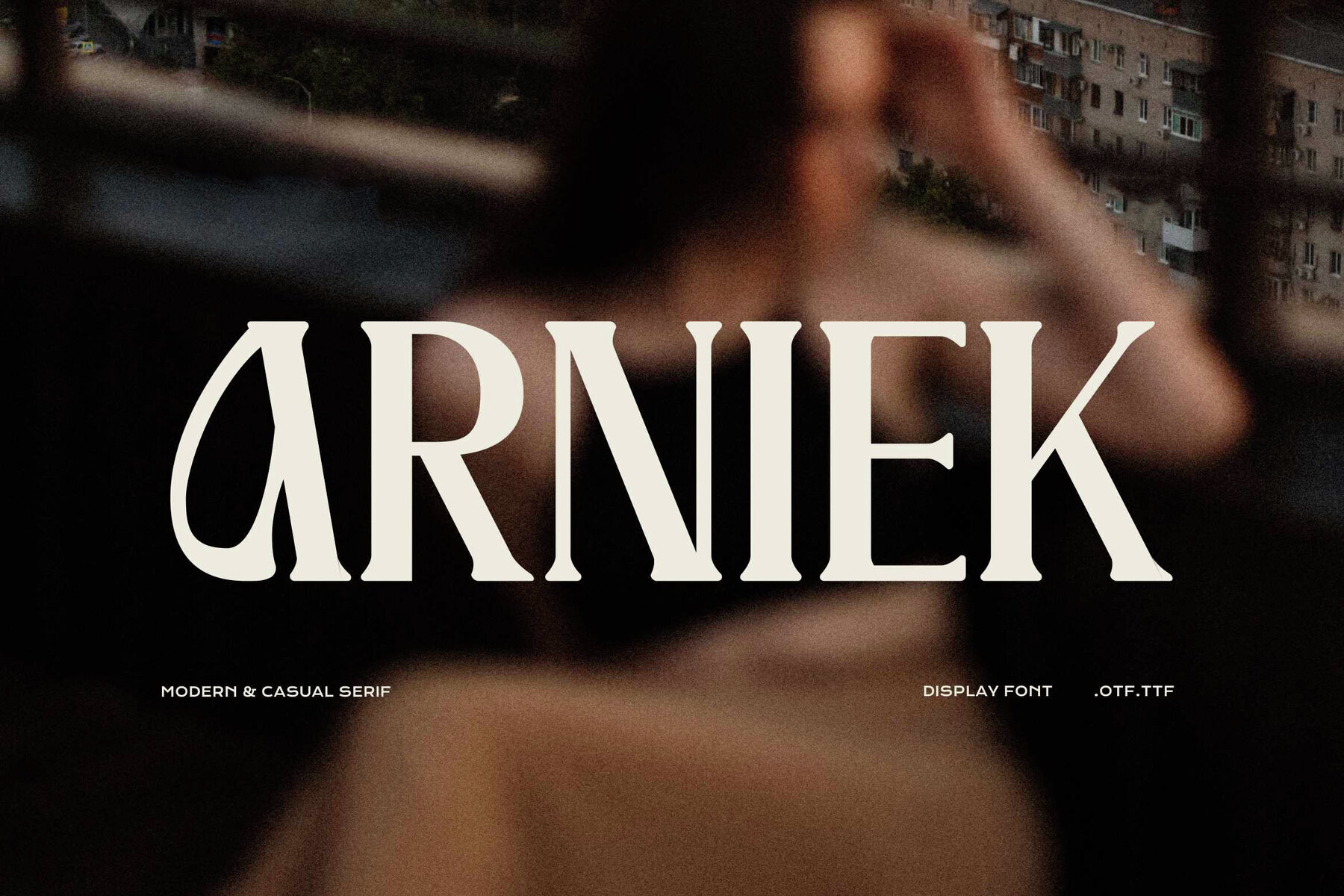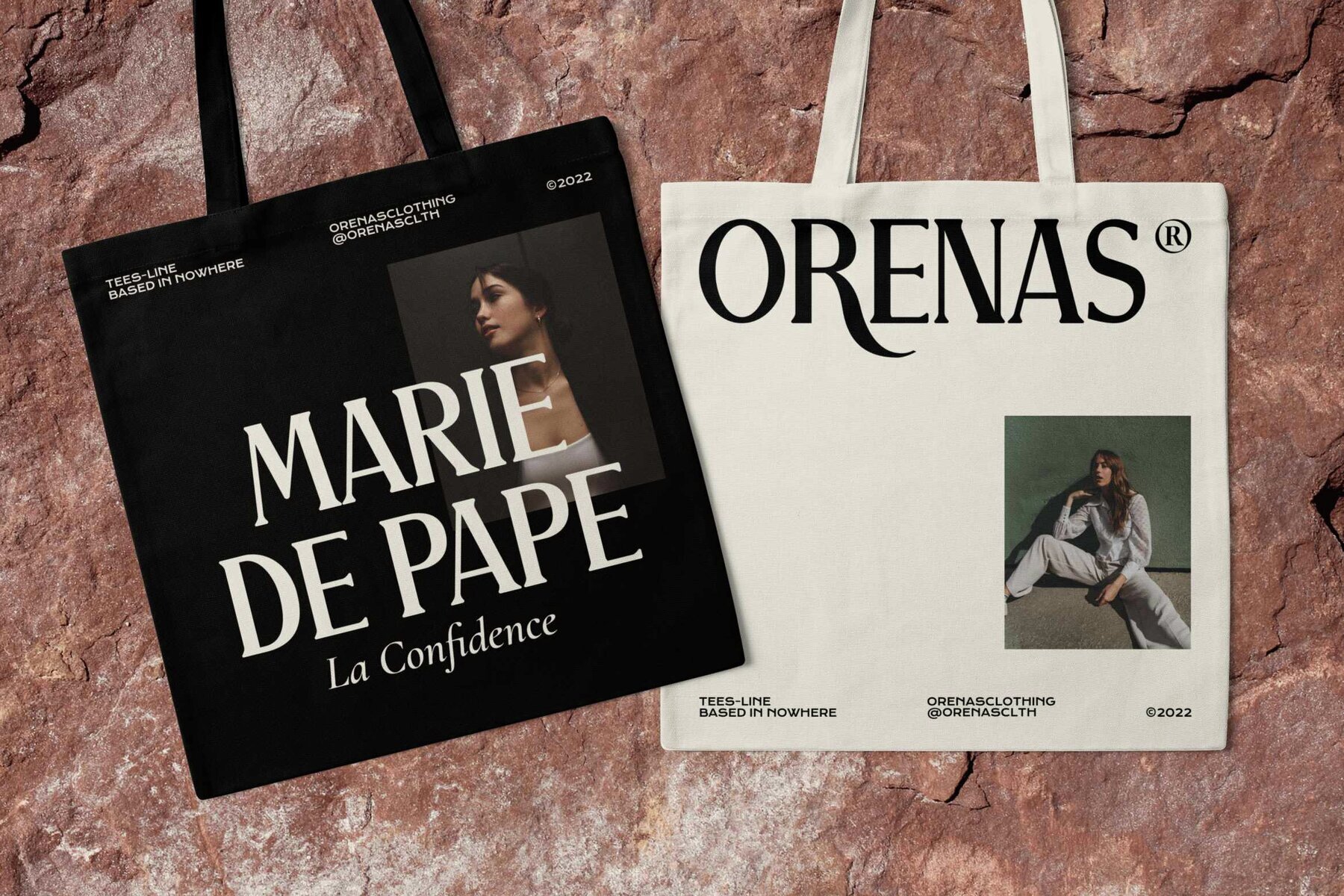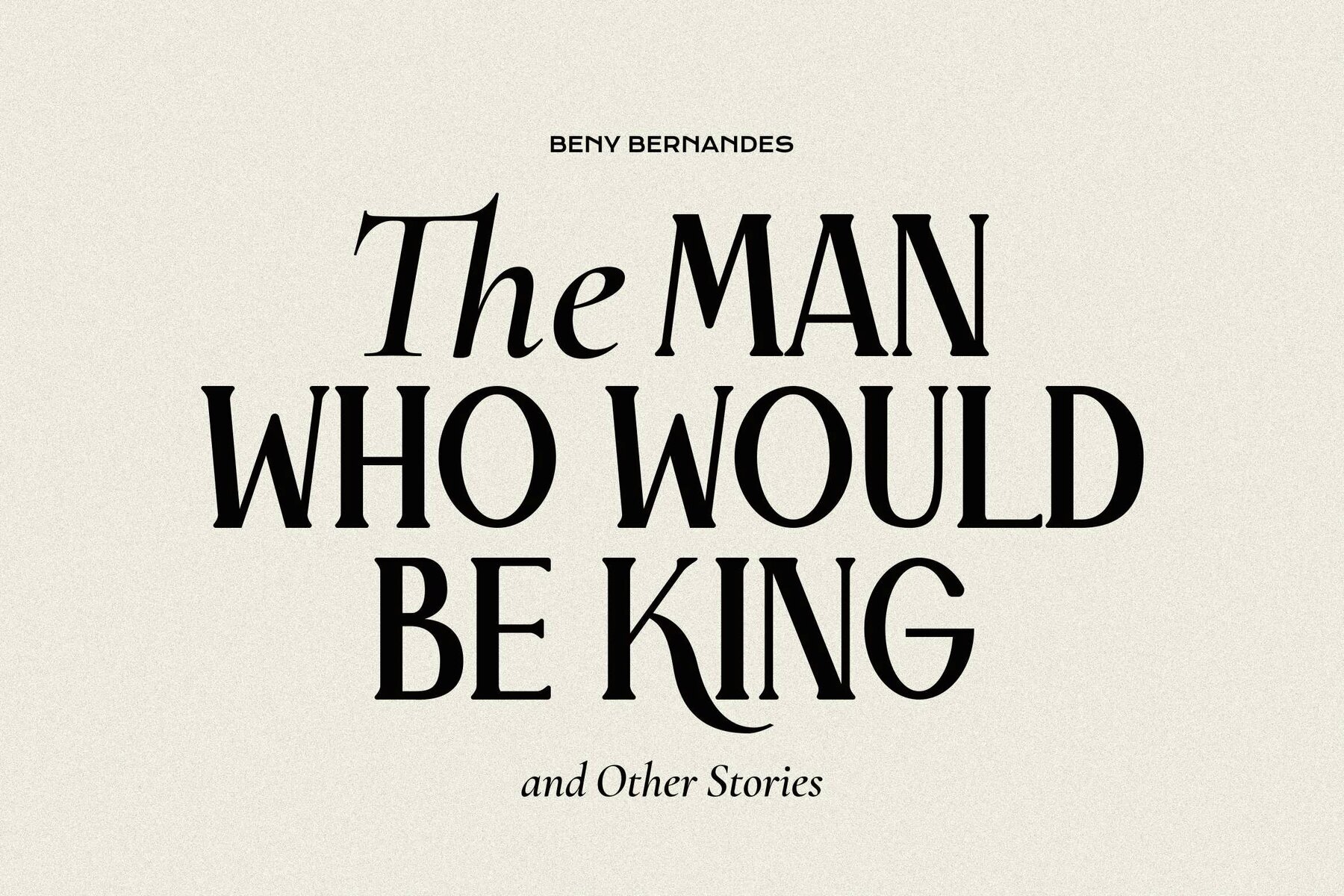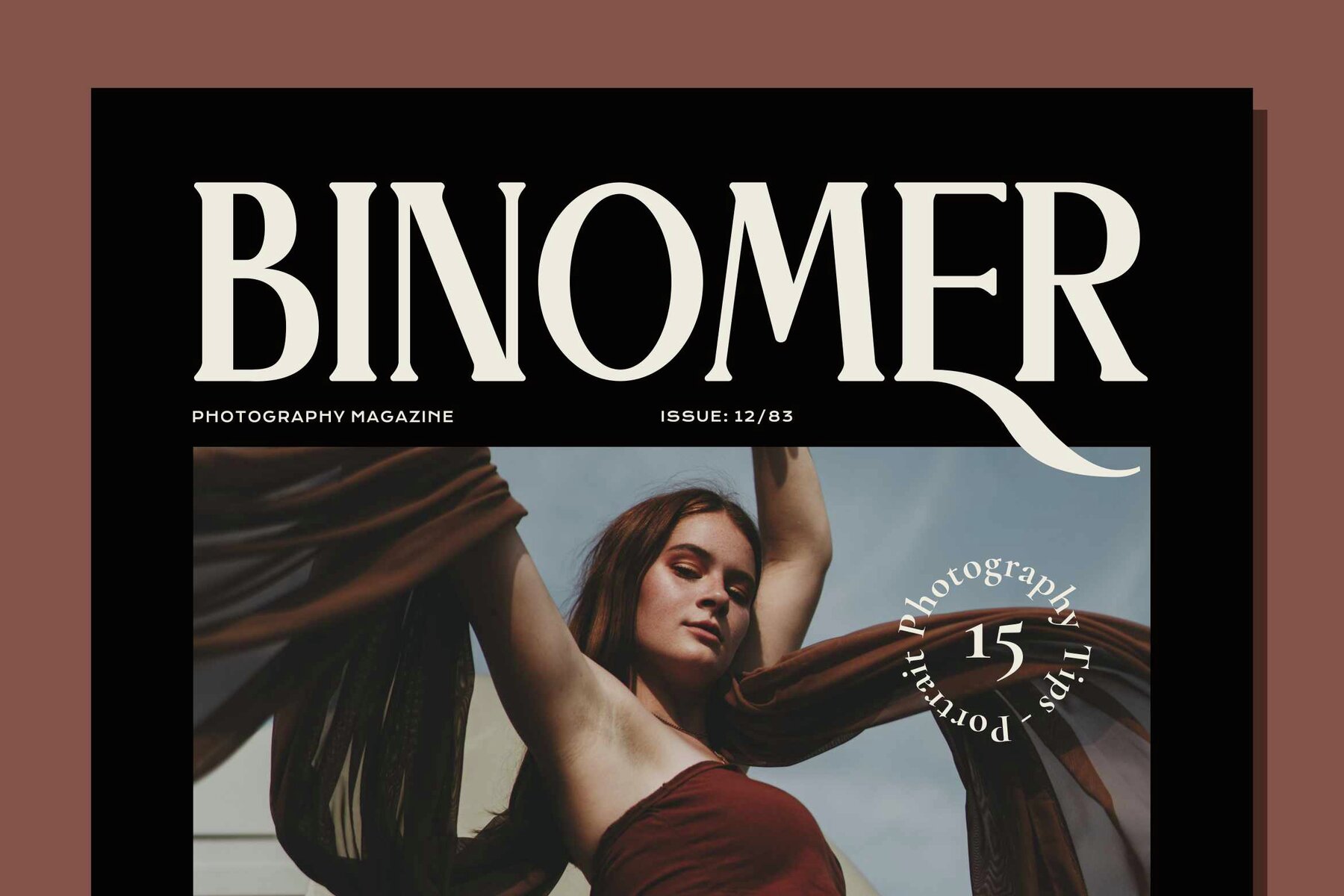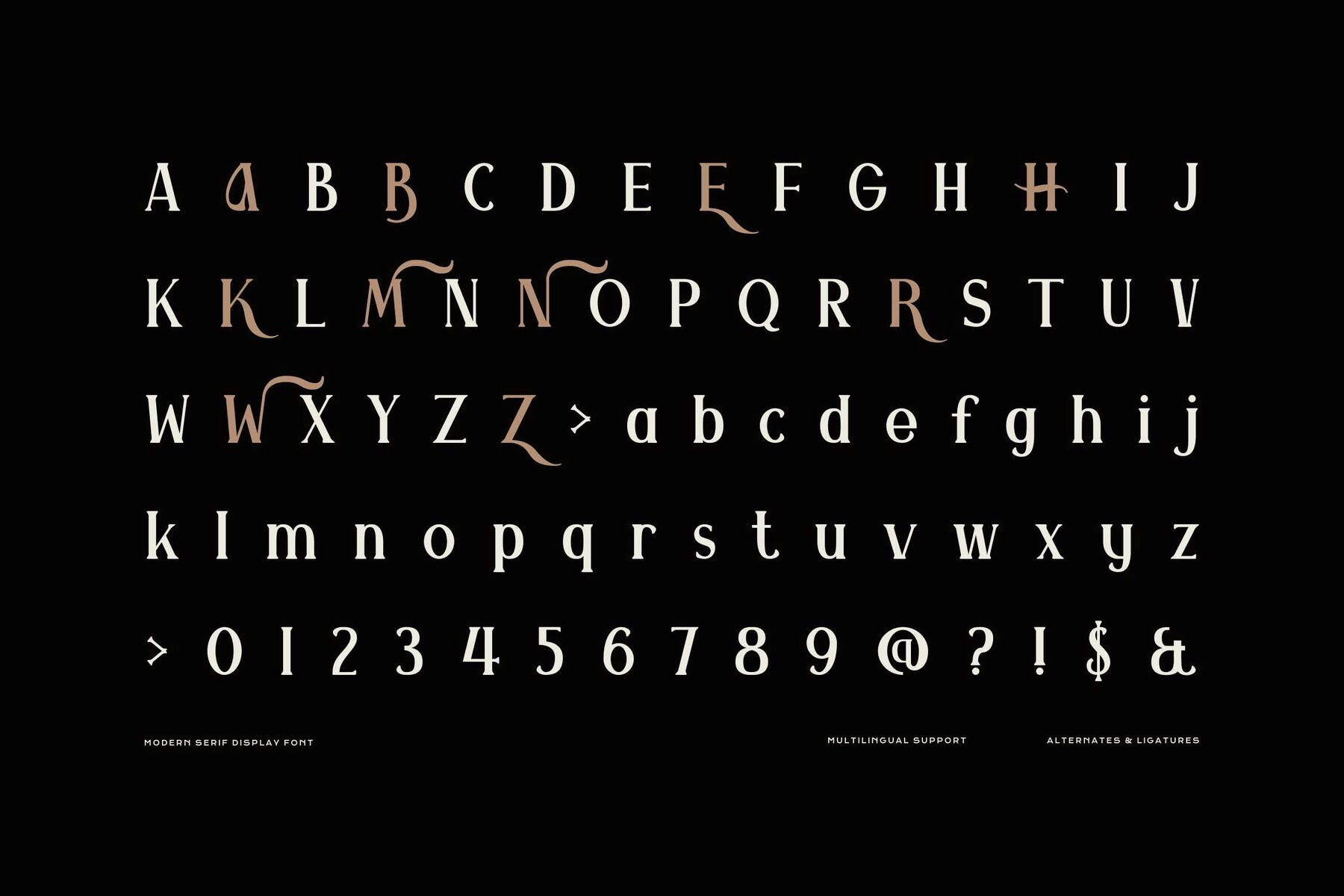
Arniek Font
Arniek Regular
Arniek is a striking serif typeface that balances modern elegance with artistic detail. Its tall, confident letterforms and refined contrast offer a premium appearance, while flowing swashes add sophistication without excess. Clean lines and flared wedge serifs set Arniek apart, lending a polished yet approachable feel. This serif font excels in a variety of design projects. Its stylish details and contemporary proportions make it an excellent choice for logos, editorial layouts, and fashion branding. Arniek also stands out on social media graphics, packaging, magazine covers, and posters, imparting a chic and memorable tone wherever used.Arniek Minimal Serif Typeface